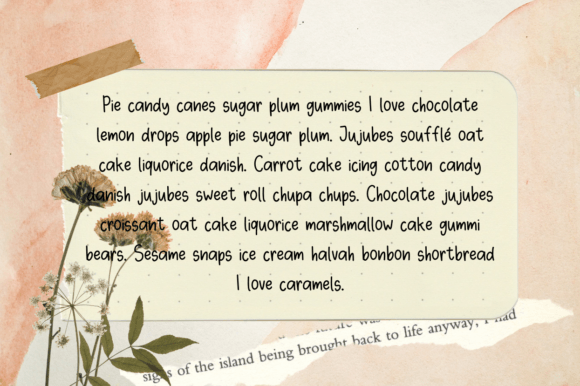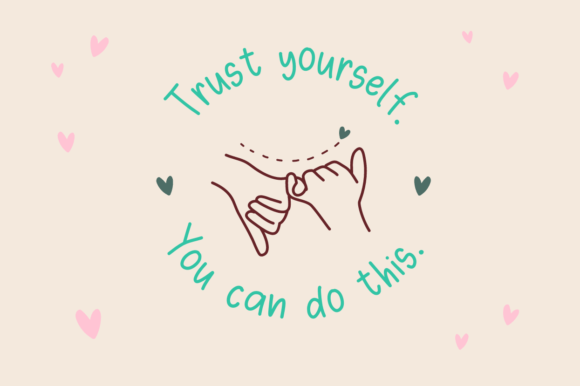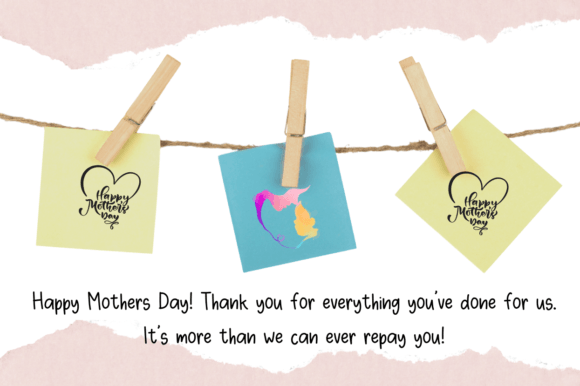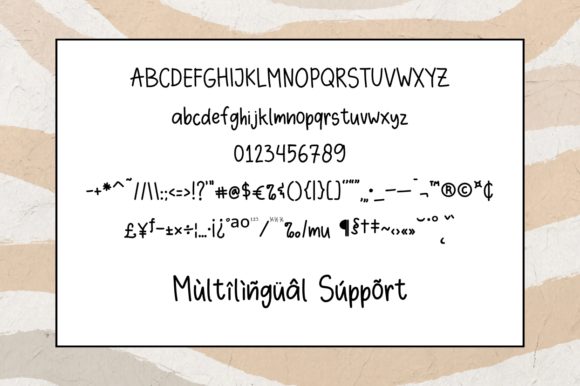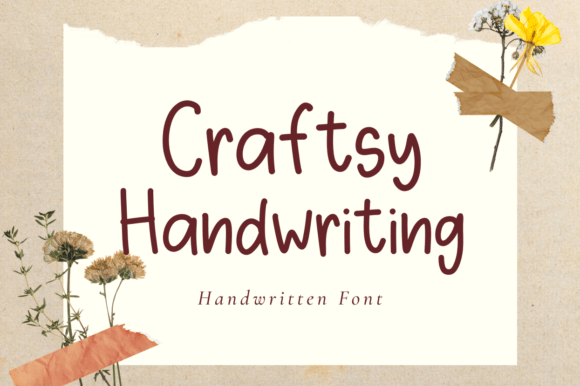
Craftsy Font: The Perfect Handwritten Font for Crafty Ideas
Craftsy is a fun and friendly handwritten font that has gained popularity among designers and crafters alike. Its quirky vibe and playful personality make it suitable for all your crafty ideas that require a youthful touch. In this article, we’ll dive into the world of Craftsy font, exploring its features, uses, and benefits.
What is Craftsy Font?
Craftsy font is a handwritten font designed to evoke a sense of playfulness and creativity. Its unique, hand-crafted look makes it perfect for projects that require a personal touch. The font features irregular lettering, varying line widths, and a carefree spirit that sets it apart from more traditional fonts.
Features of Craftsy Font
- Handwritten look: Craftsy font boasts a genuine handwritten look that’s perfect for creating a personal connection with your audience.
- Quirky vibe: The font’s irregular lettering and playful personality give it a quirky vibe that’s sure to grab attention.
- Playful personality: Craftsy font is designed to convey a sense of fun and friendliness, making it ideal for crafty ideas and creative projects.
- Versatile: The font is suitable for a wide range of projects, from DIY tutorials and crafting blogs to social media graphics and invitations.
Uses of Craftsy Font
Craftsy font is perfect for a variety of projects, including:
- DIY tutorials: Add a personal touch to your DIY tutorials and crafting instructions with Craftsy font.
- Crafting blogs: Use Craftsy font to create eye-catching headings and titles for your crafting blog.
- Social media graphics: Add a playful touch to your social media graphics, such as Instagram posts and Facebook updates.
- Invitations: Create unique and personalized invitations for parties, events, and gatherings.
- Handmade products: Use Craftsy font to label and brand your handmade products, such as jewelry, crafts, and baked goods.
Benefits of Using Craftsy Font
Using Craftsy font offers several benefits, including:
- Unique look: Craftsy font provides a distinctive look that sets your project apart from others.
- Emotional connection: The font’s handwritten look and playful personality help create an emotional connection with your audience.
- Flexibility: Craftsy font is versatile and can be used for a wide range of projects.
- Ease of use: The font is easy to read and use, making it perfect for both digital and print projects.
Tips for Using Craftsy Font
Here are some tips for using Craftsy font effectively:
- Pair with complementary fonts: Pair Craftsy font with complementary fonts to create visual interest and hierarchy.
- Use for headings and titles: Use Craftsy font for headings and titles to add a playful touch to your project.
- Experiment with colors: Experiment with different colors to find the perfect match for your project.
- Keep it simple: Keep your design simple and clean to let the font shine.
Craftsy font is a fun and friendly handwritten font that’s perfect for crafty ideas and creative projects. Its quirky vibe and playful personality make it suitable for a wide range of applications, from DIY tutorials and crafting blogs to social media graphics and invitations. With its unique look, emotional connection, flexibility, and ease of use, Craftsy font is a great addition to any designer’s toolkit.